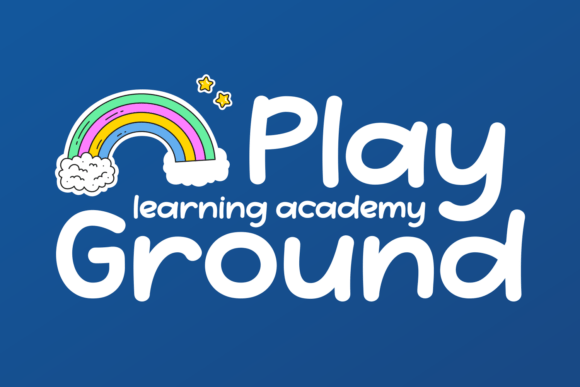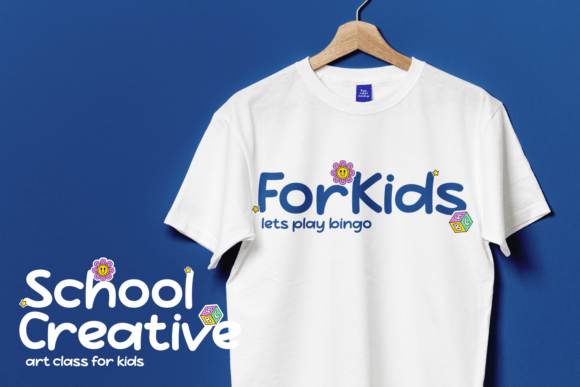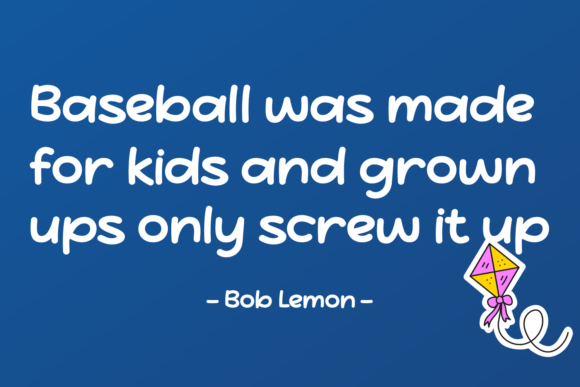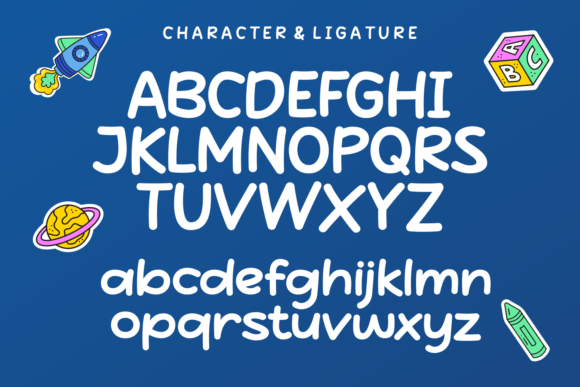
Introducing Child Note Font: The Ultimate Choice for Fun and Engaging Designs
Are you a designer or crafter looking for a font that radiates fun, creativity, and childlike joy? Look no further than Child Note Font! This delightful font is specifically designed to bring a sense of playfulness and warmth to your projects, making it perfect for kids’ products, educational materials, toys, storybooks, party invitations, and more.
The Design: A Symphony of Fun and Creativity
Child Note Font boasts a unique design that is sure to capture the attention of your audience. The font features rounded shapes, bright colors, and cartoon illustrations that come together to create a visually appealing and engaging style. The rounded shapes give the font a soft and friendly feel, while the bright colors add a pop of fun and energy. The cartoon illustrations add a touch of whimsy and playfulness, making this font perfect for projects that require a lighthearted and humorous approach.
The Perfect Choice for Kids’ Projects
Child Note Font is especially suitable for kids’ products, educational materials, and toys. The font’s playful and engaging design makes it perfect for projects that require a fun and interactive approach. Whether you’re designing a children’s book, a toy packaging, or an educational material, Child Note Font is sure to delight your young audience. The font’s clear and easy-to-read design ensures that your message is conveyed effectively, making it perfect for projects that require a high level of readability.
Beyond Kids’ Projects: Versatility at Its Best
While Child Note Font is perfect for kids’ projects, its versatility extends far beyond. The font’s warm and friendly design makes it suitable for a wide range of projects, including:
• Storybooks: Add a touch of magic to your storybooks with Child Note Font’s playful and engaging design.
• Party Invitations: Create fun and exciting party invitations that will thrill your guests.
• Educational Materials: Make learning fun with Child Note Font’s clear and easy-to-read design.
• Toys: Add a touch of personality to your toy packaging with Child Note Font’s bright and playful design.
Why Choose Child Note Font?
So, why choose Child Note Font for your next project? Here are just a few reasons:
• Unique Design: Child Note Font boasts a unique design that is sure to capture the attention of your audience.
• Playful and Engaging: The font’s playful and engaging design makes it perfect for projects that require a fun and interactive approach.
• Clear and Easy-to-Read: The font’s clear and easy-to-read design ensures that your message is conveyed effectively.
• Versatile: Child Note Font is suitable for a wide range of projects, from kids’ products to party invitations.
Tips for Using Child Note Font
Here are a few tips for using Child Note Font in your projects:
• Pair with Other Fonts: Pair Child Note Font with other fonts to create a unique and visually appealing design.
• Experiment with Colors: Experiment with different colors to add a pop of fun and energy to your design.
• Use Cartoon Illustrations: Use cartoon illustrations to add a touch of whimsy and playfulness to your design.
In conclusion, Child Note Font is the ultimate choice for designers and crafters looking for a font that radiates fun, creativity, and childlike joy. With its unique design, playful and engaging style, and versatility, Child Note Font is perfect for a wide range of projects. Whether you’re designing a children’s book, a toy packaging, or a party invitation, Child Note Font is sure to delight your audience. So why wait? Try Child Note Font today and bring a touch of fun and creativity to your projects!